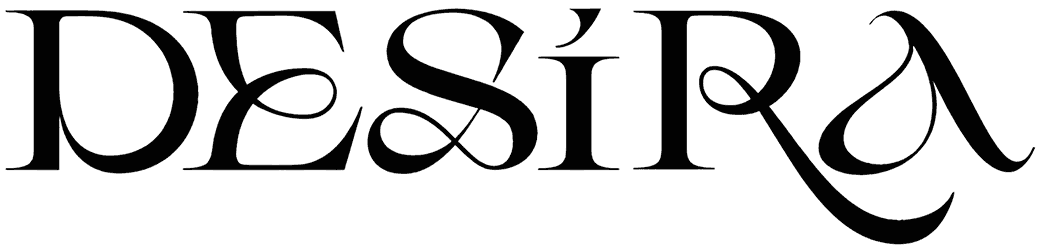
Desira Font
Do you desire to create a luxurious and attractive design and surprise your viewers? Desira is a strikingly decorated serif font that mirrors an ace and adorable vibe. It doesn’t support full lowercase letters, but having two styles of most capital letters will cover this lack. As a royal font, set the Desira font on your future layouts, for example, postcards, branding, magazines, or so forth, and give them a memorable mood.